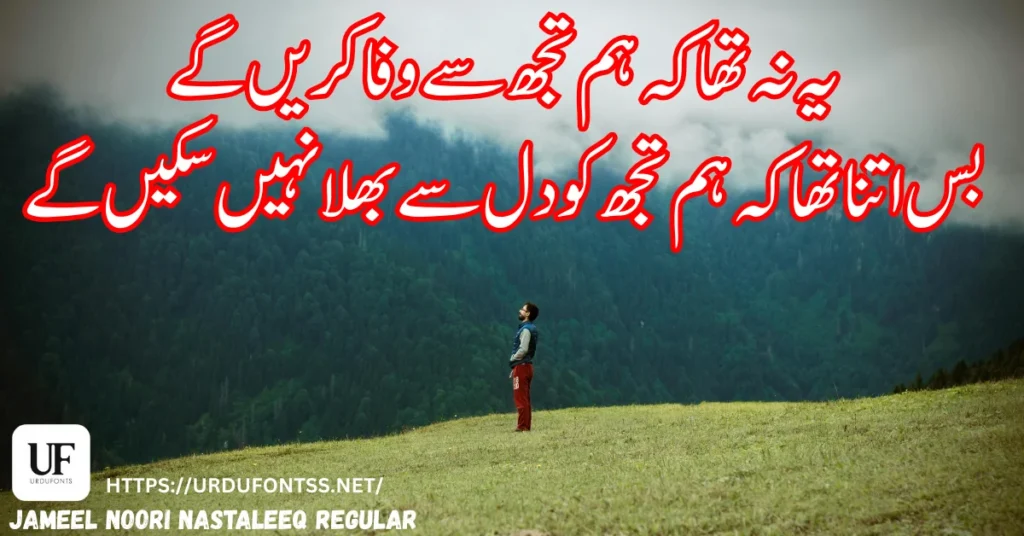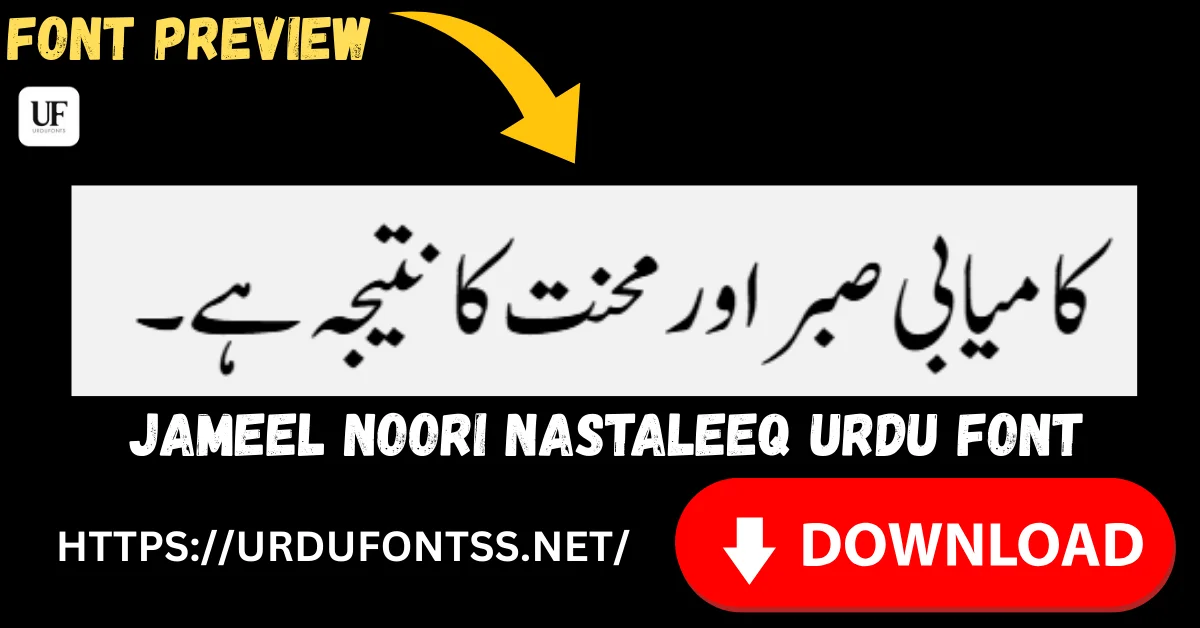
Jameel Noori Nastaleeq Regular Urdu Font – Free Download & Guide
Introduction – Why Jameel Noori Nastaleeq is Still a Favorite
If you have ever searched for an authentic Urdu font online, chances are you have come across the name Jameel Noori Nastaleeq. It is one of those rare fonts that has stood the test of time, remaining relevant and widely used even as newer fonts continue to emerge. The reason is simple — it preserves the traditional Nastaleeq writing style that Urdu readers find natural and familiar.
This article is a complete resource on Jameel Noori Nastaleeq. I will cover everything from its fascinating history and ownership details to download steps, installation guides, and practical use cases. Whether you are a blogger, a student, or a professional designer, by the end of this guide you will know exactly how to use this font effectively and responsibly. The font is fully Unicode-compatible, which means it works seamlessly on Windows, Android, Microsoft Word, websites, and PDF files.
What is Jameel Noori Nastaleeq Urdu Font?
Jameel Noori Nastaleeq is a Unicode-based Urdu font designed in the traditional Nastaleeq writing style. For those unfamiliar with the term, Nastaleeq is the cursive, flowing script that Urdu has historically been written in. It is what gives handwritten Urdu its elegance and natural rhythm.
What makes Jameel Noori Nastaleeq special is how closely it mimics that handwritten feel. The letterforms flow diagonally from top-right to bottom-left, creating the characteristic sloping appearance that Urdu readers instinctively connect with. This makes it particularly suitable for long-form reading — books, articles, blogs, and educational materials where readability over extended periods matters.
Before fonts like Jameel Noori became available, Urdu digital typing was largely confined to InPage, a desktop publishing software that used its own proprietary font format. Jameel Noori changed that by bringing Nastaleeq into the Unicode world, making it usable across modern software and web platforms.
Noori Nastaleeq vs Jameel Noori Nastaleeq – What’s the Difference?
This is a common point of confusion, so let me clarify it clearly. Noori Nastaleeq is the original typeface created by Ahmed Mirza Jamil in 1981. It was a groundbreaking achievement that made Nastaleeq Urdu possible on computers for the very first time. However, it was designed for older systems and was not Unicode-based.
Jameel Noori Nastaleeq is a modern Unicode adaptation that emerged later, around the early 2000s with commonly shared versions dated around 2008. It took inspiration from the original Noori Nastaleeq but was built to work across contemporary operating systems, web browsers, and mobile devices. Think of it as the bridge between traditional Urdu typography and modern digital compatibility.
The Complete History of Jameel Noori Nastaleeq Font
The Birth of Digital Nastaleeq – Ahmed Mirza Jamil’s Contribution (1981)
The story of digital Urdu typography begins with one man: Ahmed Mirza Jamil. In 1981, he created Noori Nastaleeq, and in doing so, he solved a problem that many thought was unsolvable. The Nastaleeq script is inherently complex — characters change shape based on position, letters stack diagonally, and the kerning is far more intricate than in Latin scripts. Getting this to work on early computer systems was a remarkable technical achievement.
Ahmed Mirza Jamil’s work laid the foundation for everything that followed. Without Noori Nastaleeq, the digital Urdu landscape would look completely different today. His contribution is widely acknowledged across the typography and Urdu computing communities. For more on Urdu font history and the evolution of digital typography, explore our collection of Urdu Nastaliq Fonts.
From Noori Nastaleeq to Jameel Noori (Early 2000s)
As computers evolved and the internet grew, the limitations of older font formats became apparent. Users needed Urdu fonts that could work on websites, in word processors, and across different operating systems — not just in InPage. This created the need for a Unicode-compatible Nastaleeq font.
Jameel Noori Nastaleeq emerged to fill this gap. Based on available information across Google and major font repositories, it became publicly available in the early 2000s, with the most commonly shared versions dated around 2008. Its purpose was clear from the start: to provide a clean, readable Nastaleeq font that preserved the traditional look while embracing modern compatibility.
The Digital Urdu Revolution – Why This Font Changed Everything
The shift from proprietary font formats to open Unicode standards was a turning point for Urdu content creation. Suddenly, bloggers could write in Nastaleeq on WordPress. Students could type assignments in Microsoft Word. Websites could display Urdu text without requiring visitors to install special software. Jameel Noori Nastaleeq played a significant role in this transformation. It helped democratize Urdu digital publishing and remains one of the most downloaded Urdu fonts to this day.